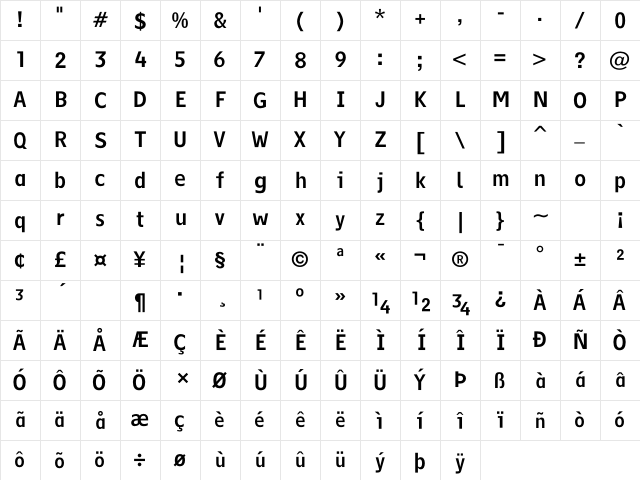
AFInterface Two Free Font
AFInterface Two
Style: Two
AFInterface Family
AFInterface Two
Design Context for AFInterface
AFInterface is a composed and adaptable typeface that performs quietly and consistently across a wide range of design contexts.